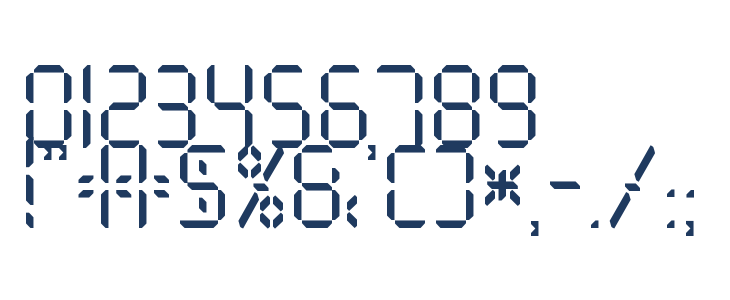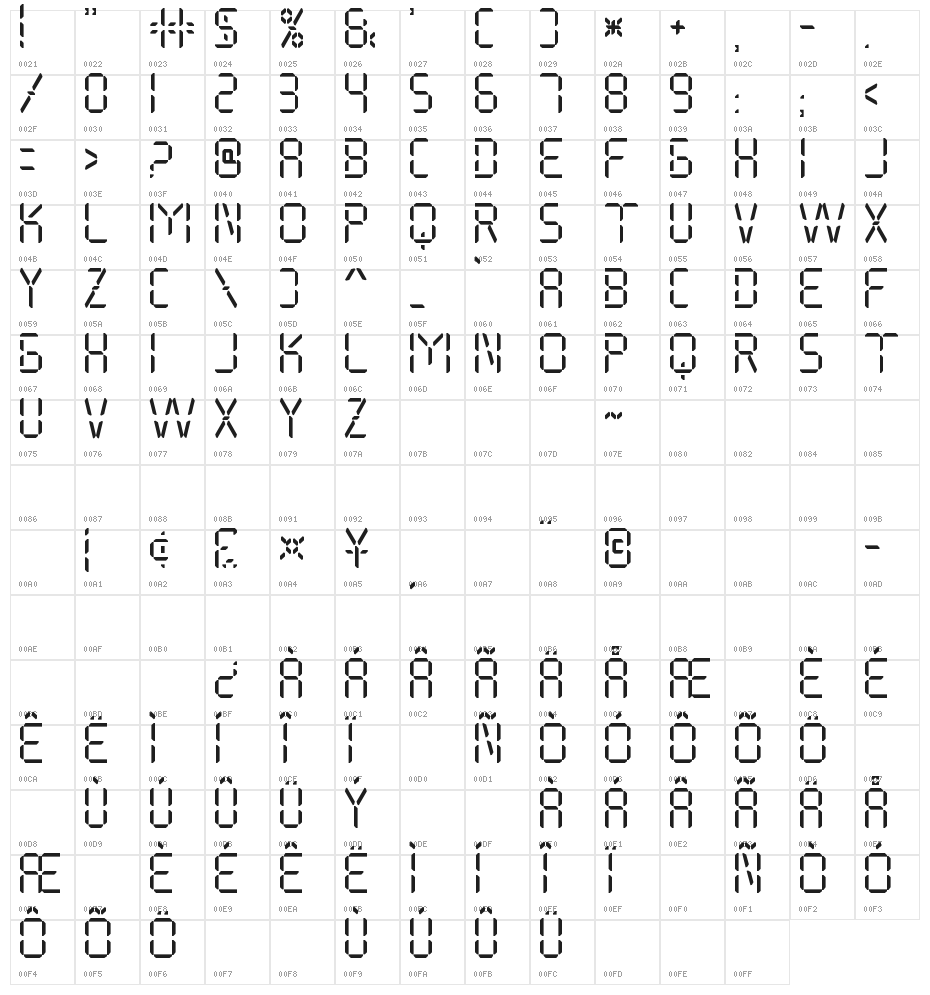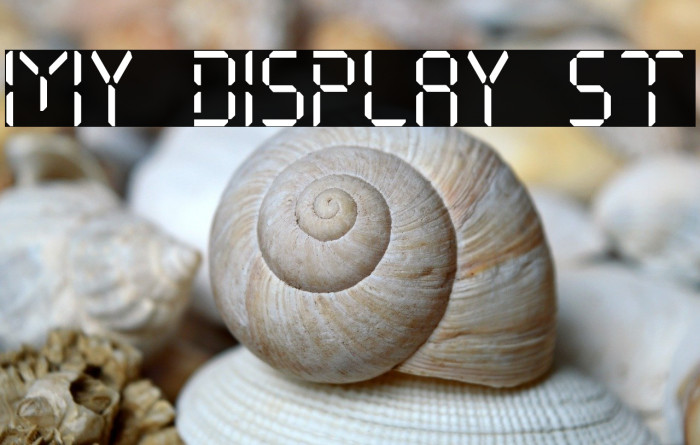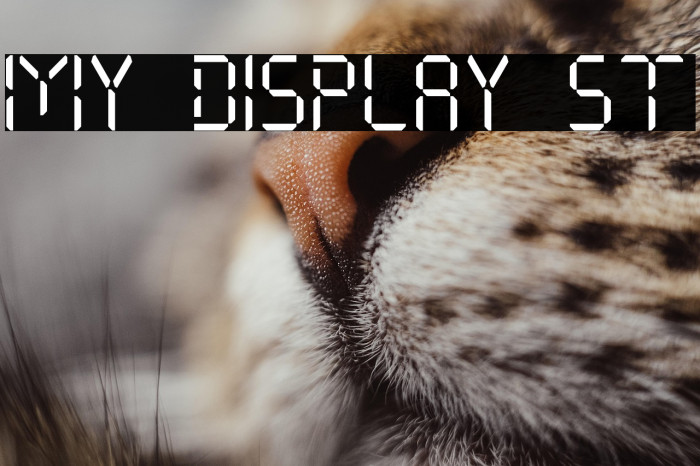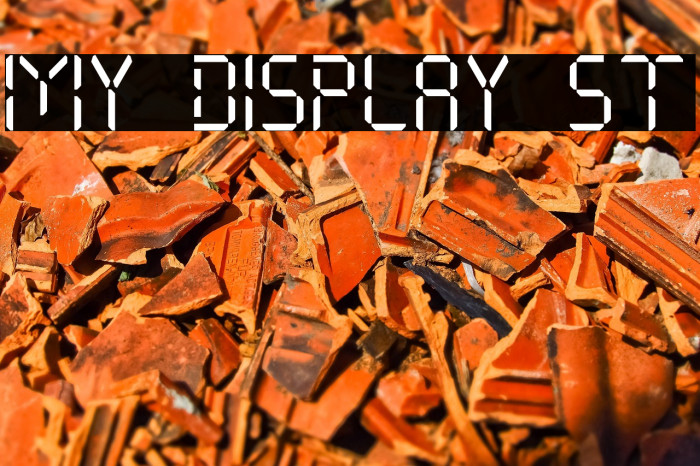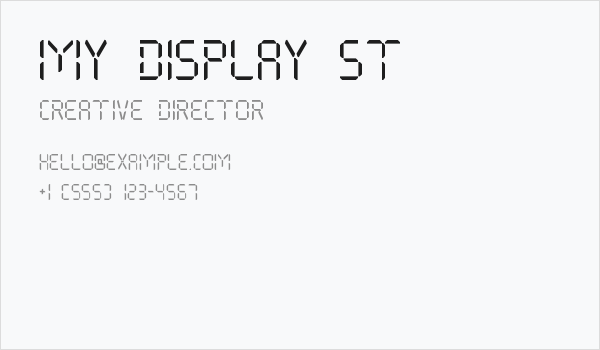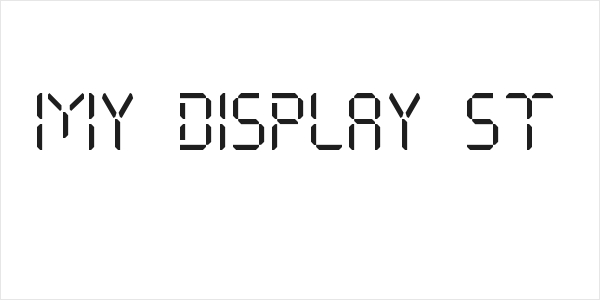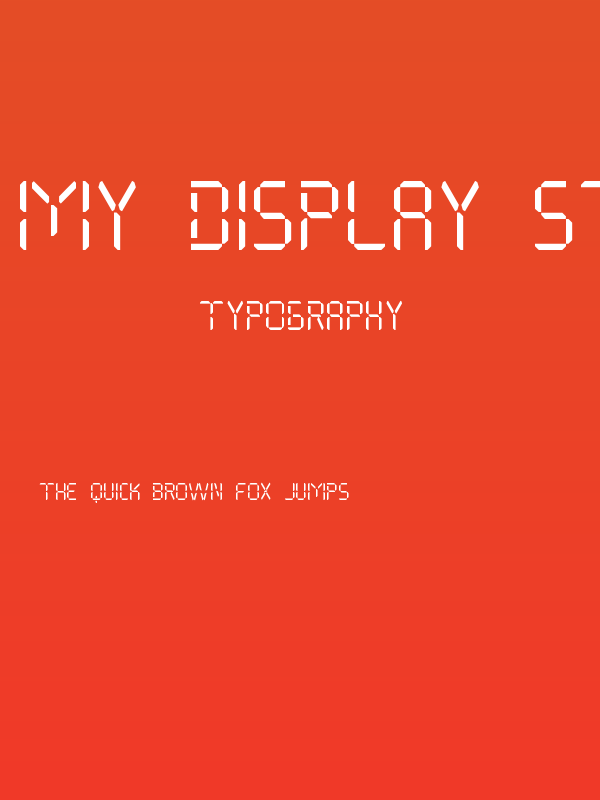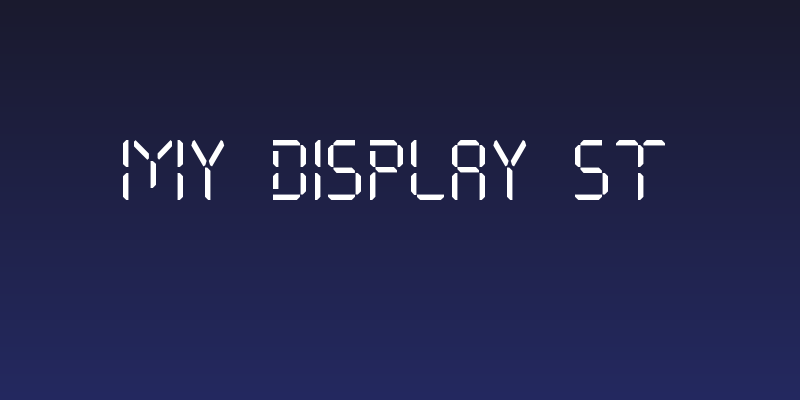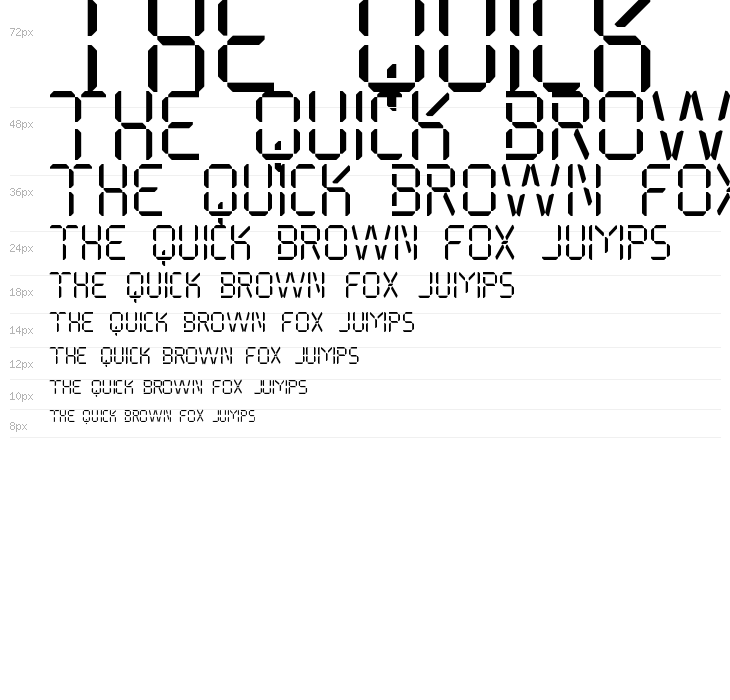
My Display St Font
My Display St Description
This font features a distinctive digital, segmented style reminiscent of LED displays or digital clocks. Each character is constructed from a series of straight lines and angles, creating a geometric and technical appearance. The uppercase and lowercase letters maintain a consistent height, contributing to a uniform look. Numbers and special characters follow the same segmented design, ensuring cohesion across all glyphs. The font's unique style makes it ideal for projects that require a modern, technological feel, such as digital interfaces, tech branding, or futuristic themes.
| Proposed Projects | Ideal for digital interfaces, tech branding, futuristic themes, and electronic displays. |